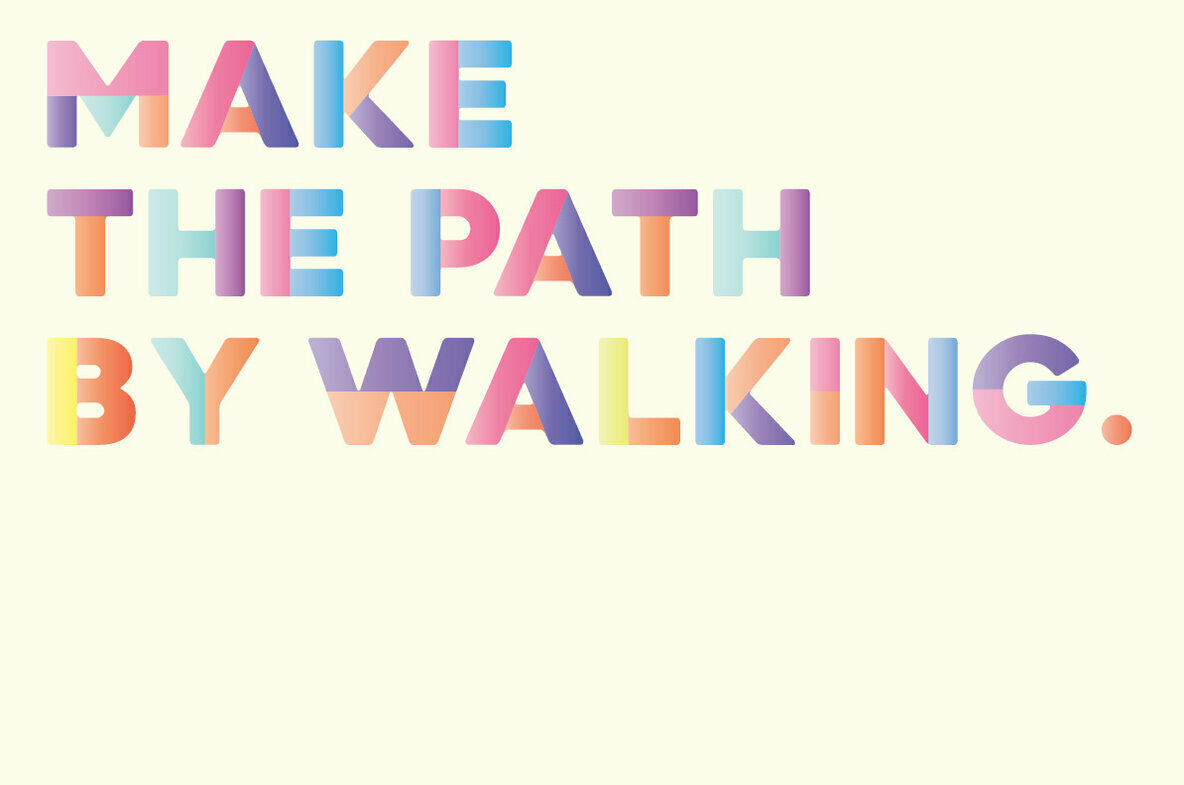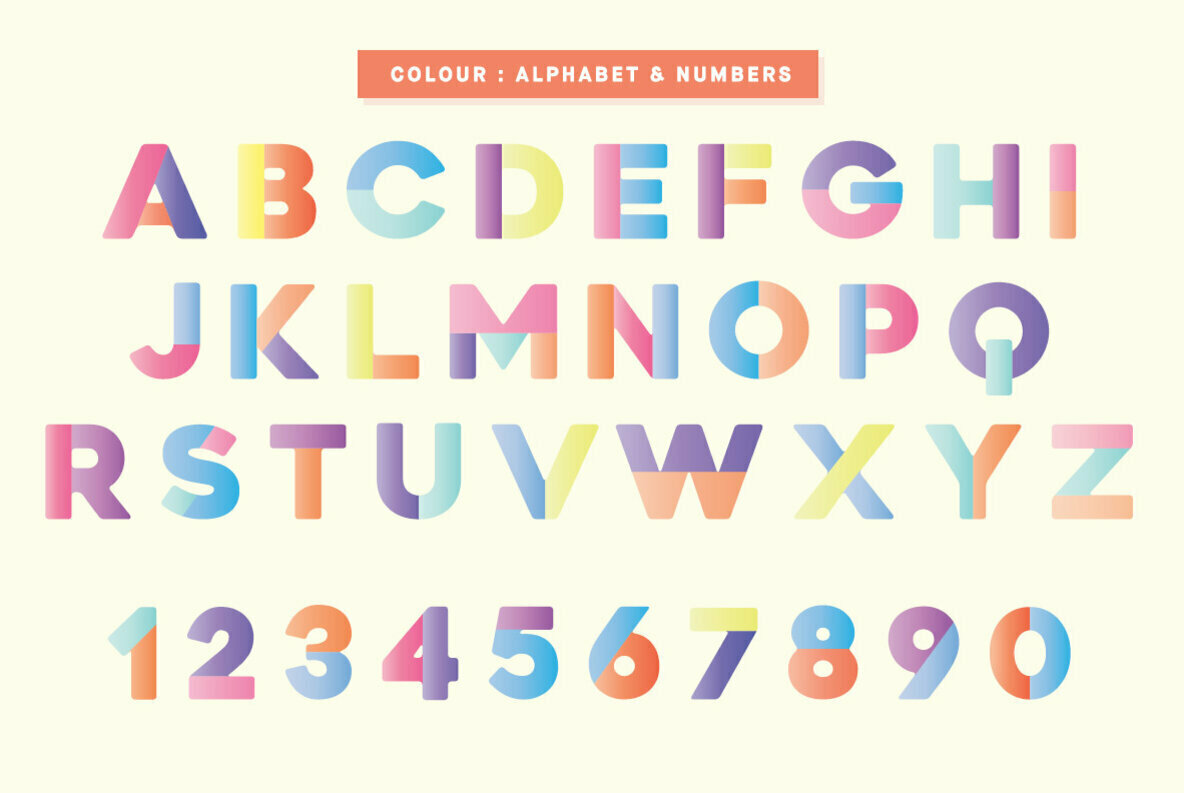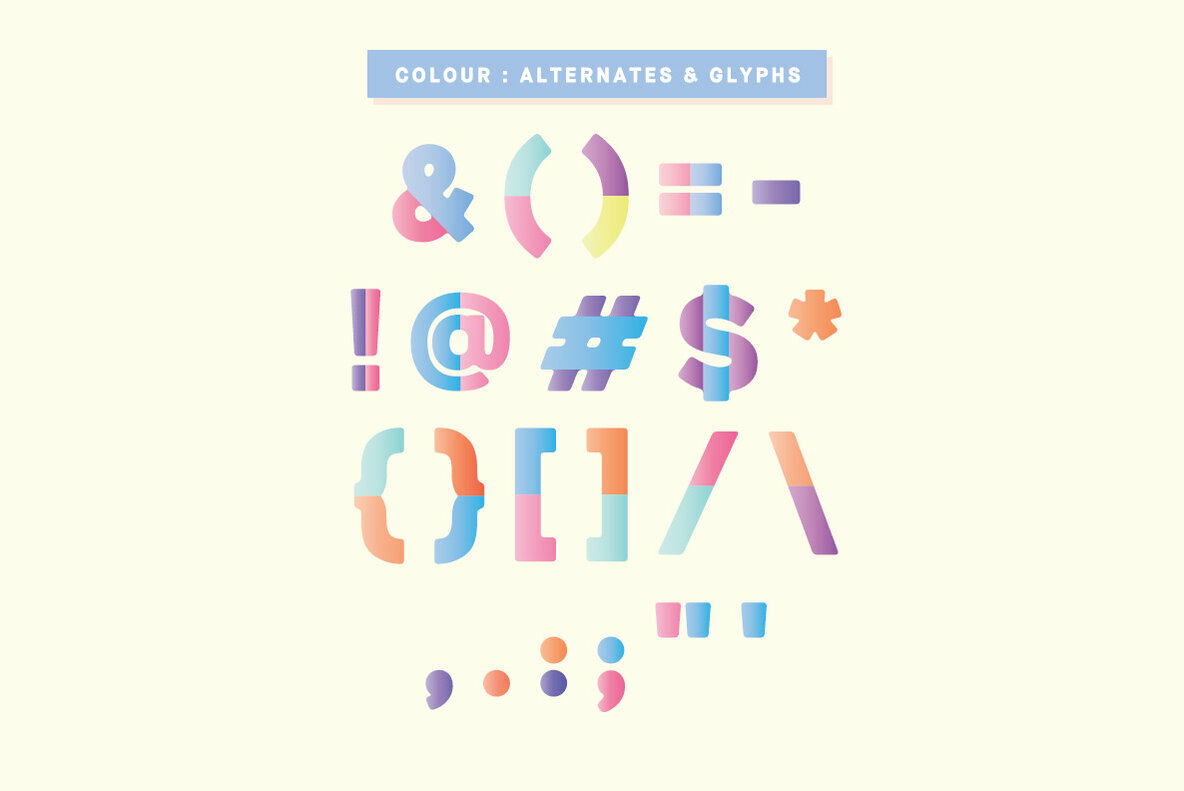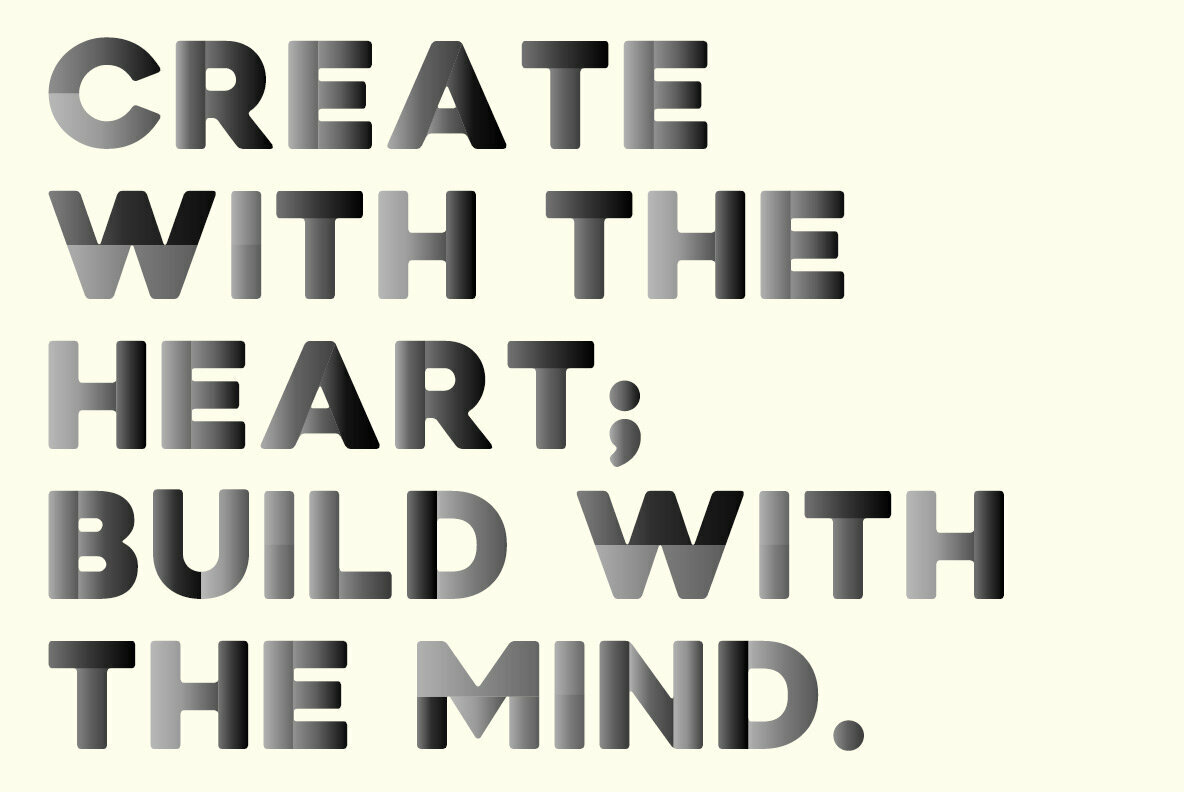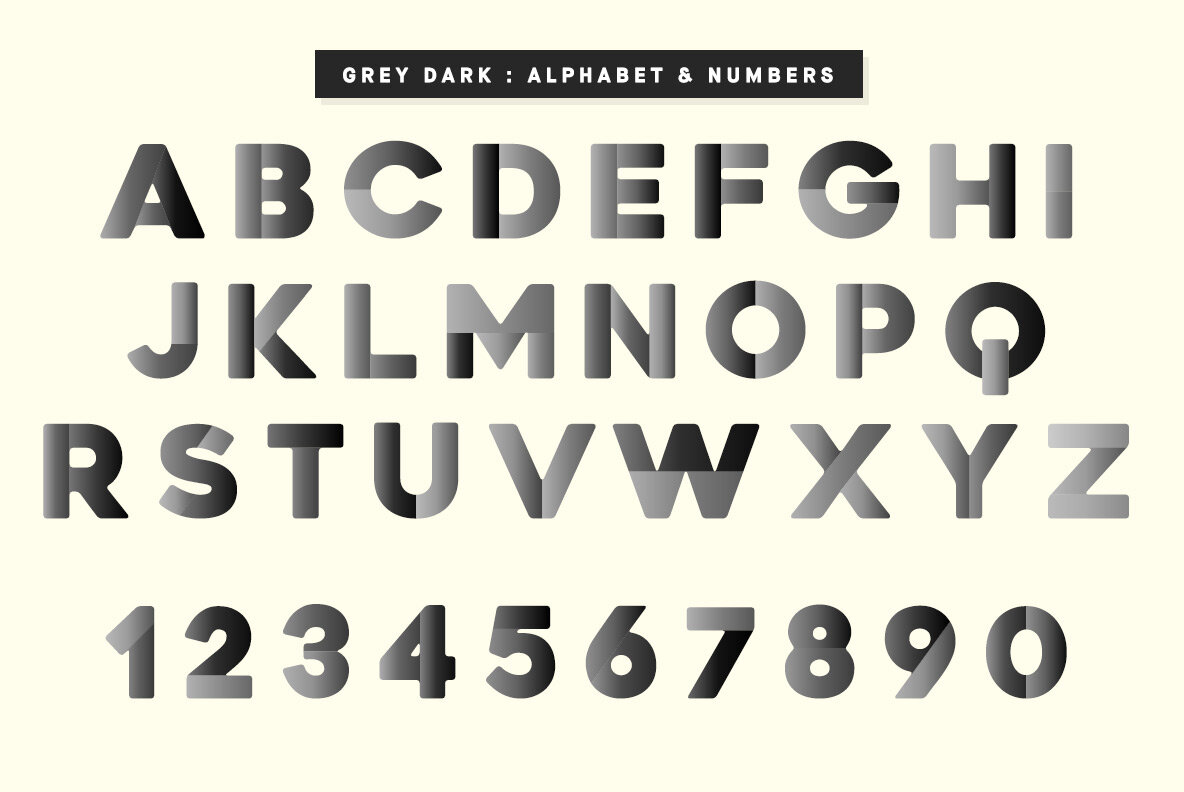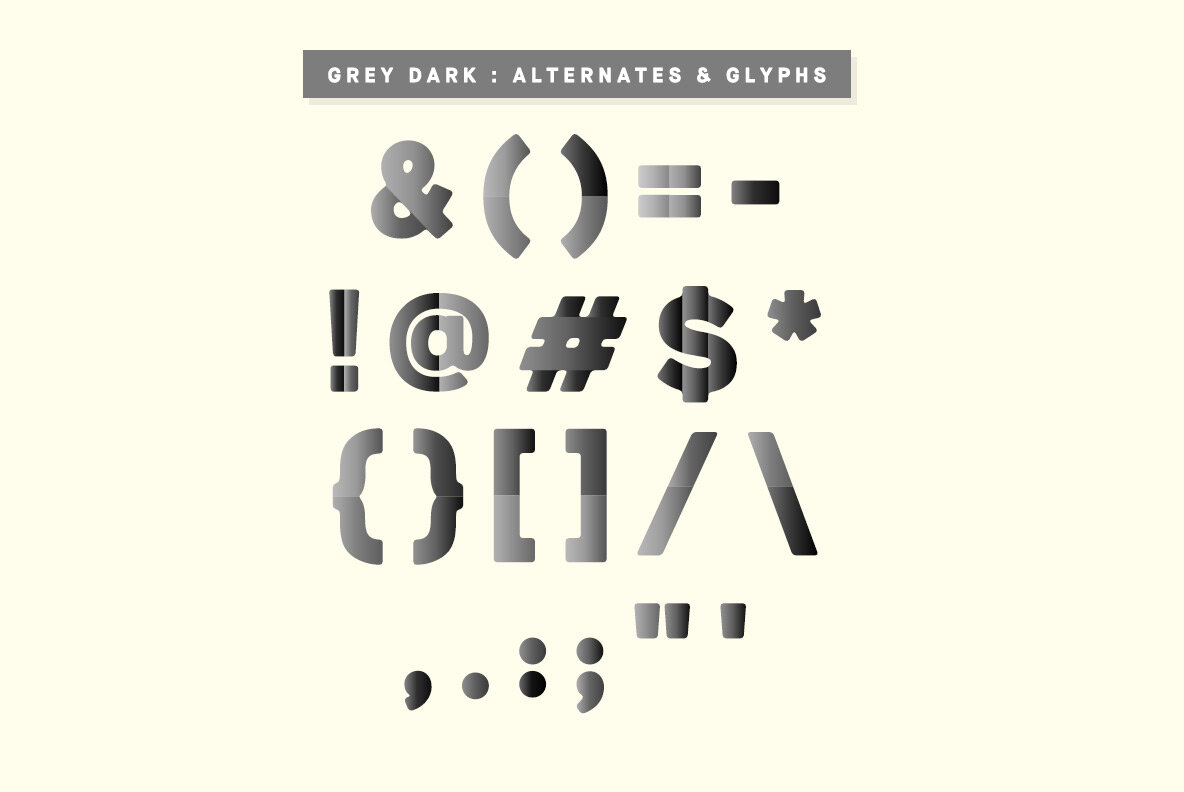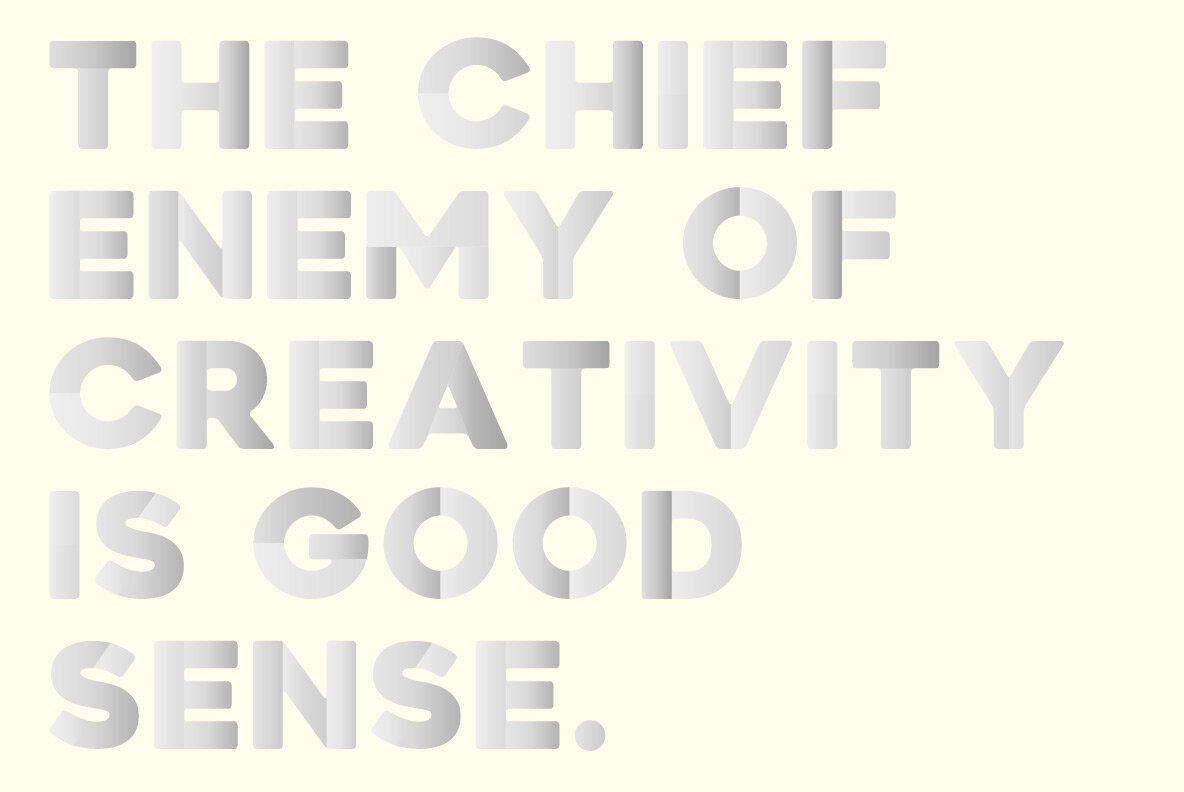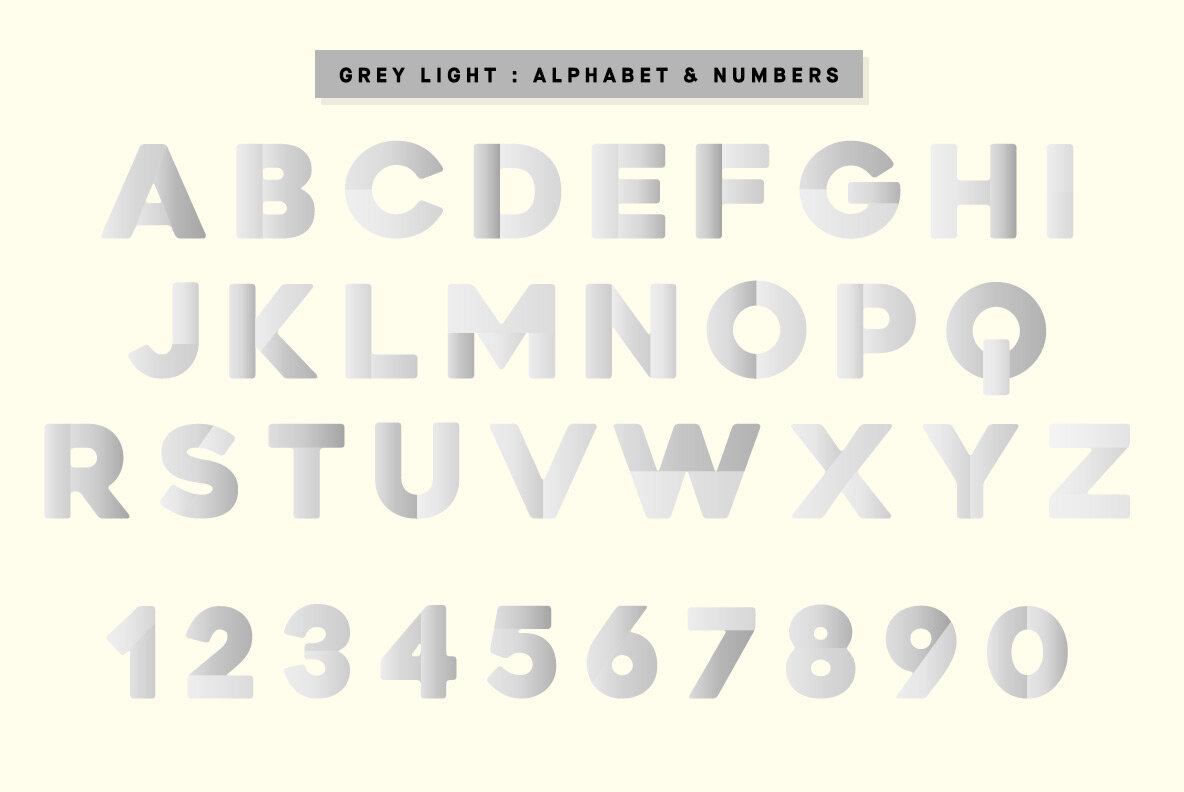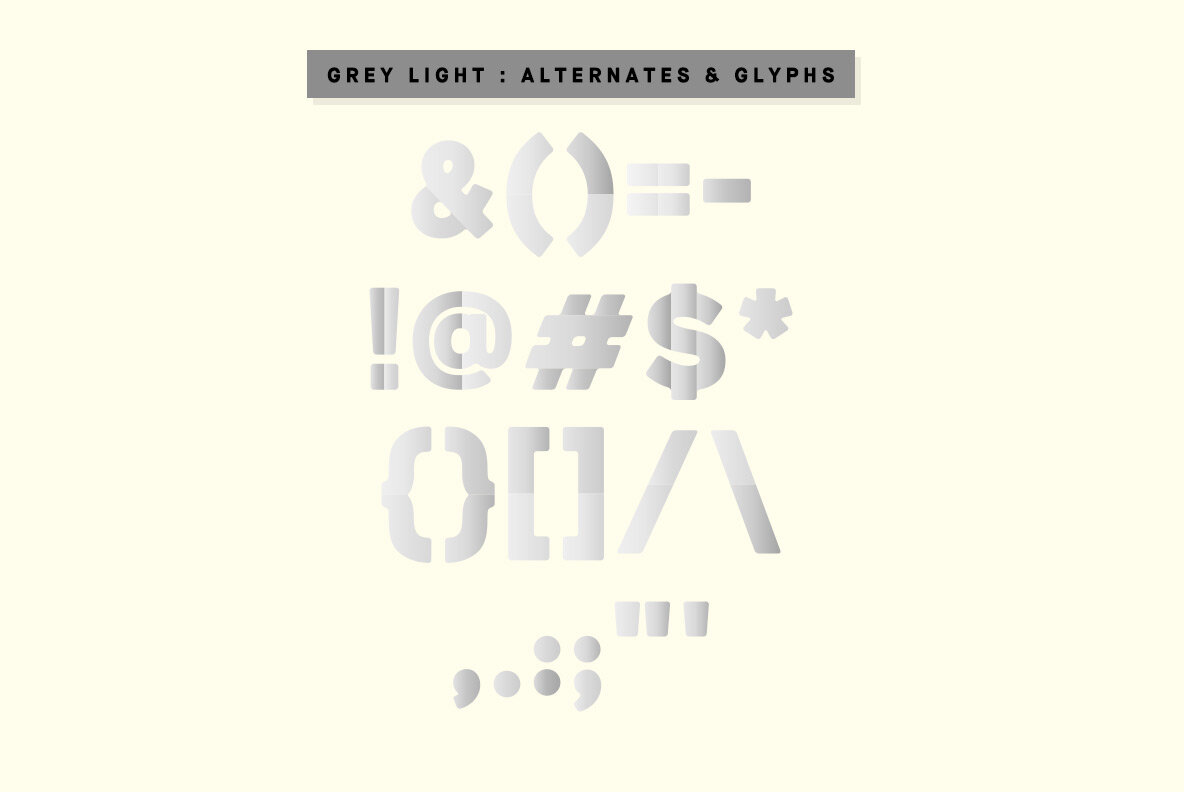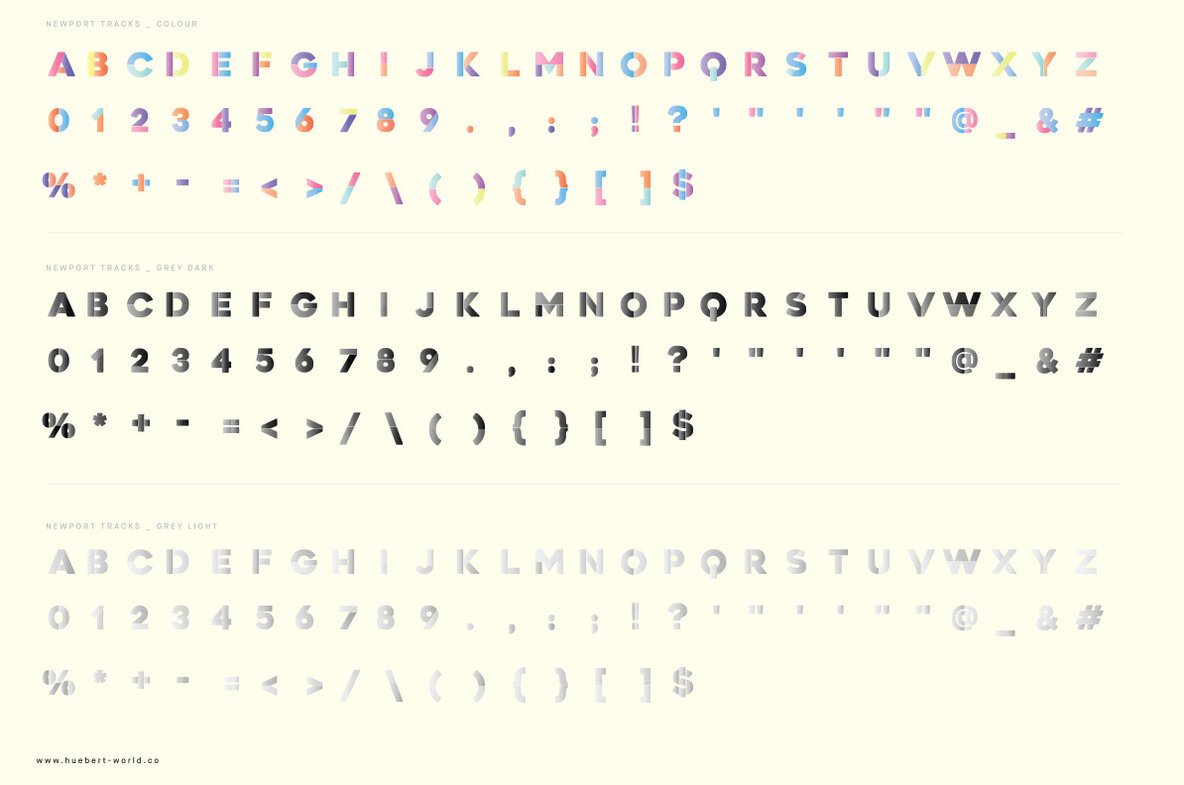
Newport Tracks Colour Font
Newport Tracks comes with three choices of colour palette - one beautiful pastel colour variation and two minimal greyscale variations (light and dark). You can adjust the colours converting your type to paths and working from there.